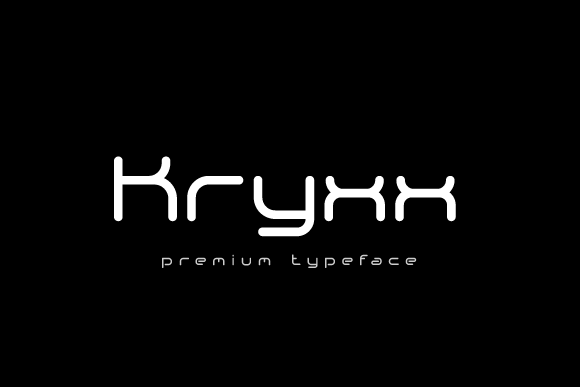
Prepare to be spellbound by Kryxx Font, an artistic spectacle crafted by the creative genius of KPH. This remarkable sans serif typeface, a testament to visual elegance, will leave you enchanted with its captivating allure.
Immerse yourself in a world of boundless creativity, where words dance effortlessly across the page, imbued with a distinct personality that commands attention. Kryxx Font is not merely a collection of letters and symbols; it's an artistic masterpiece that takes typography to breathtaking new heights.
With its meticulously designed uppercase and lowercase letters, numbers, and an array of punctuation marks, Kryxx Font offers unparalleled versatility. Unleash your imagination and utilize it for a myriad of creative endeavors, from company logos and posters to movie titles and magazine layouts.
Experience the satisfaction of crafting designs that exude sophistication and charm. Allow Kryxx Font to elevate your projects, transforming them into visually stunning creations that leave a lasting impression.